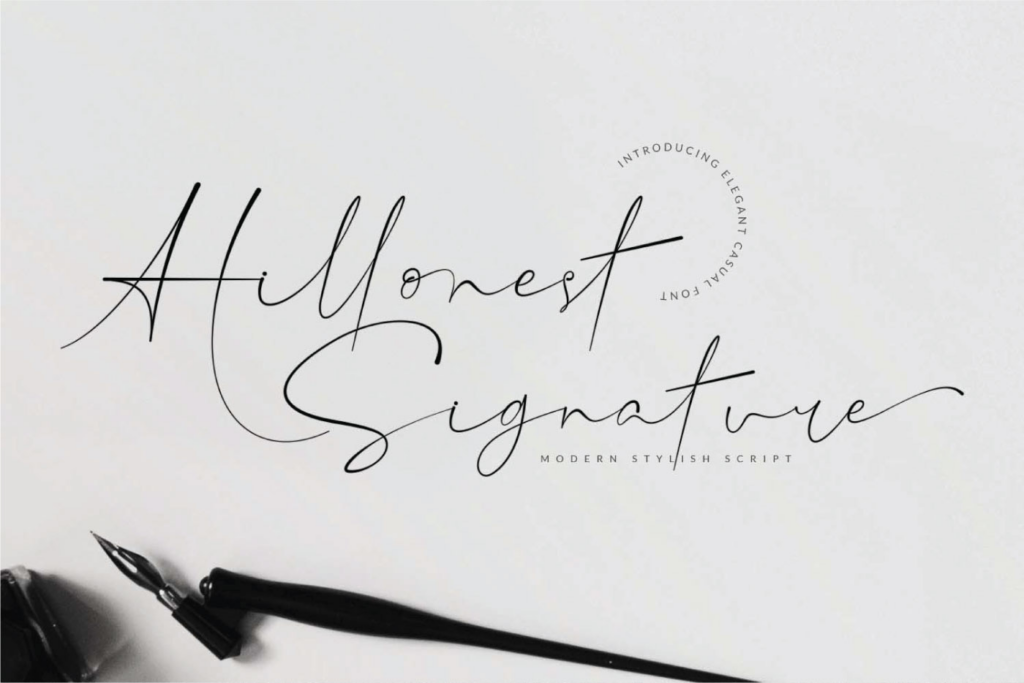
Hillonest, from Nanda Hardiansyah, is a luxury signature font, suitable for any projects such as logos, branding projects, homeware designs, product packaging, mugs, quotes, posters, shopping bags, t-shirts, book covers, name cards, invitation cards, greeting cards, labels, photography, watermarks, special events, and all your other lovely projects that need a beautiful handwritten taste.